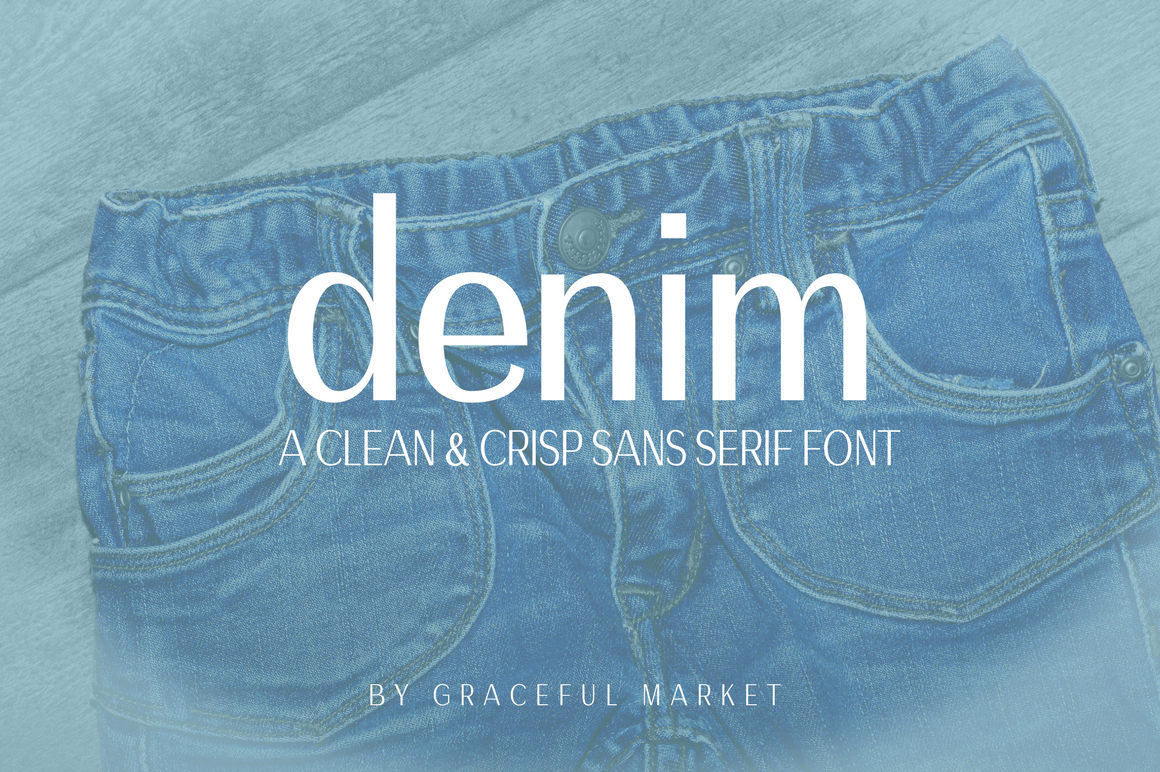
Denim Sans Serif Font
Denim, is a casual crisp sans serif font. Great for any project big or small.
Great for signatures, greeting cards, T-Shirt, logos, or any branding project.